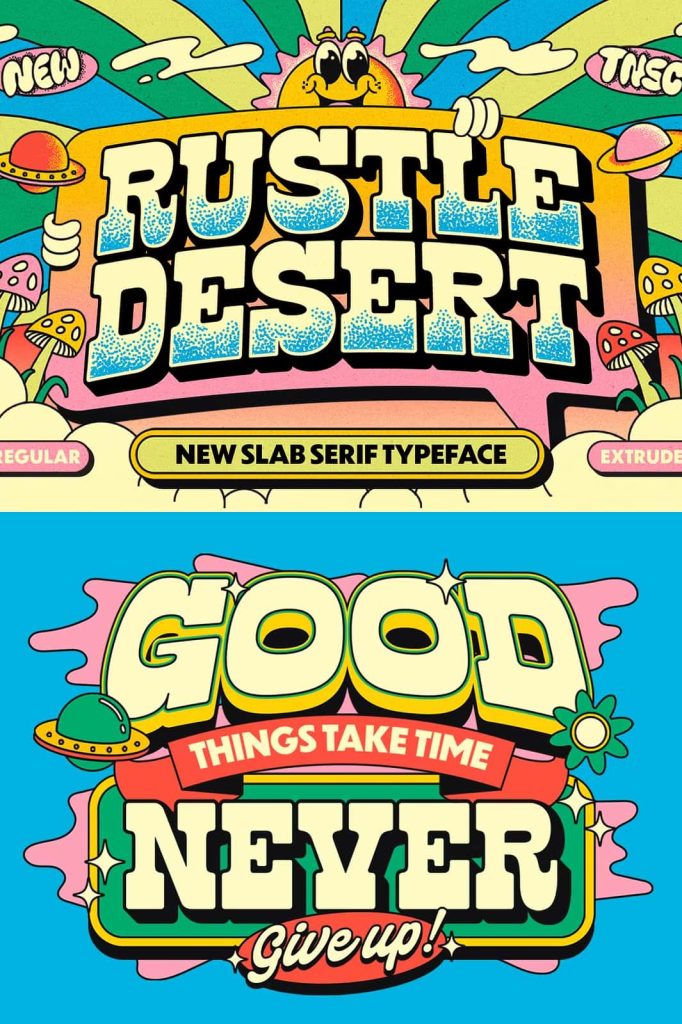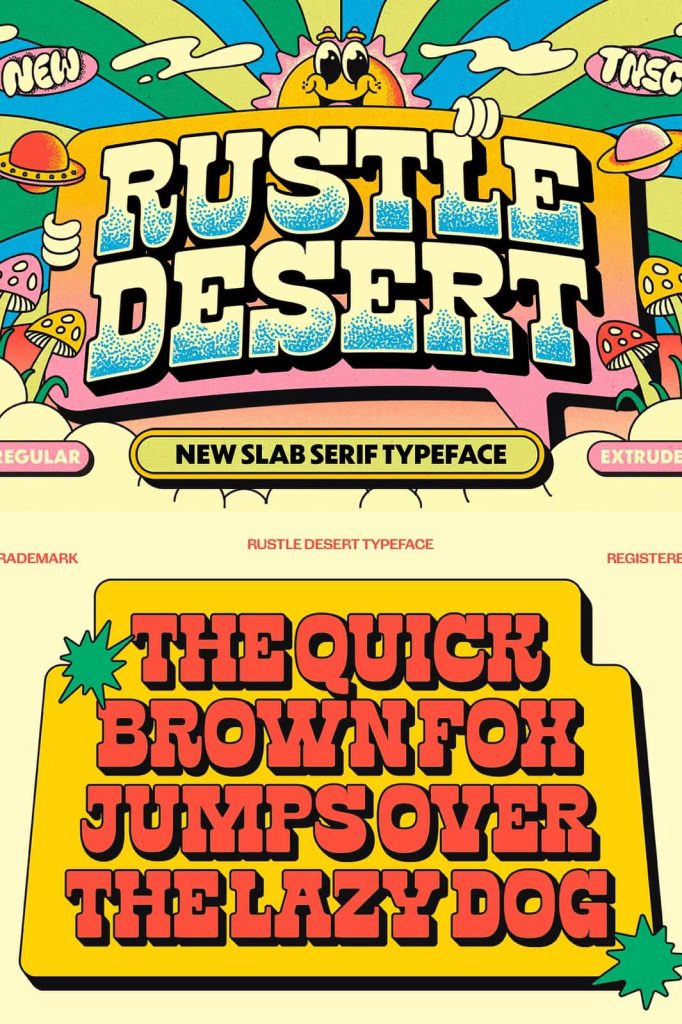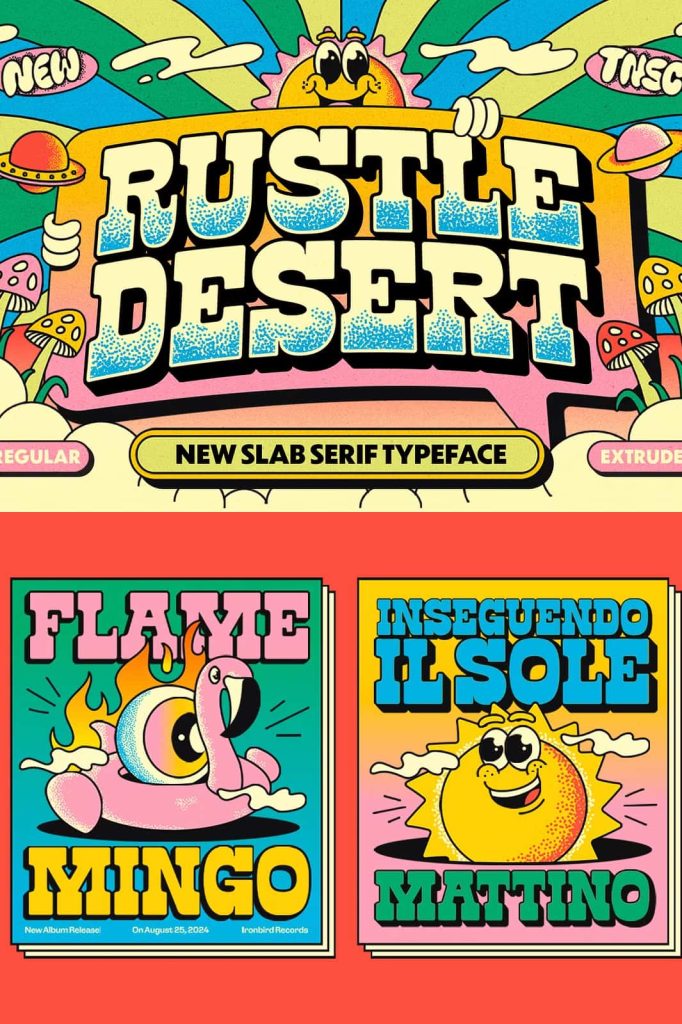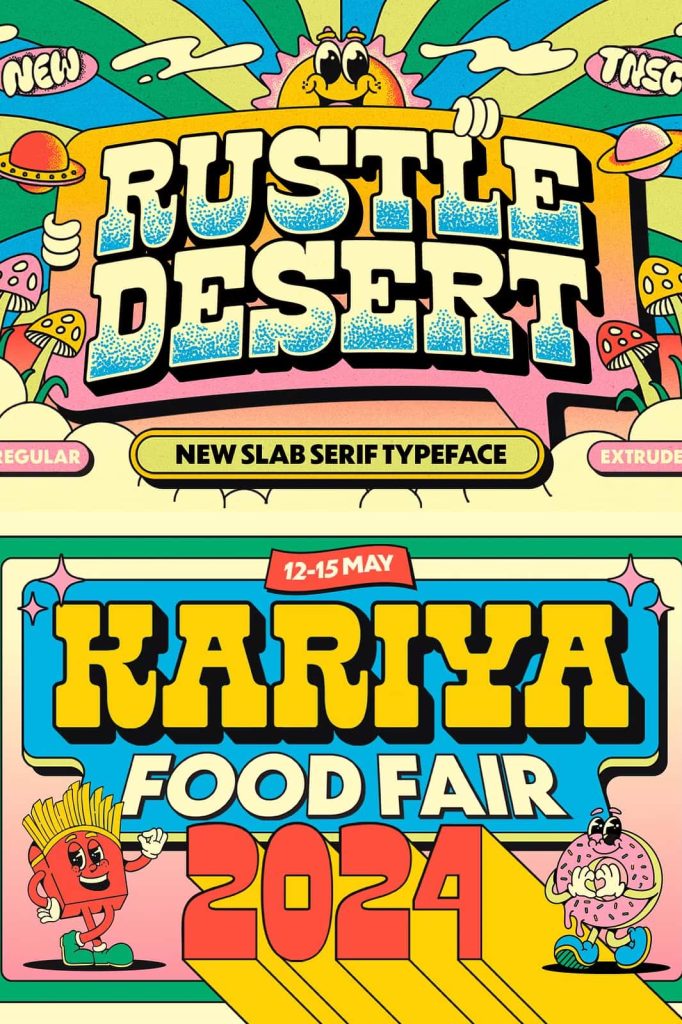
TNSC Rustle Desert is a slab serif font. The 4th released font from The Native Saint Club. Rustle Desert is inspired by pop design posters from the 80s and 90s.